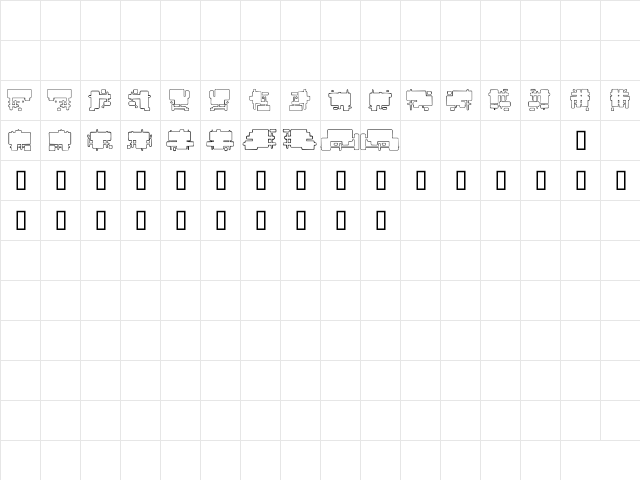
Future Boxes Regular
Design Context for Future Boxes Typeface
Future Boxes has a distinctly futuristic character, with geometric precision and clean angles that feel at home in technology, gaming, and sci-fi contexts.
Pro Tip: Try Future Boxes with generous letter-spacing in UI labels and navigation — the geometric forms benefit from room to breathe.